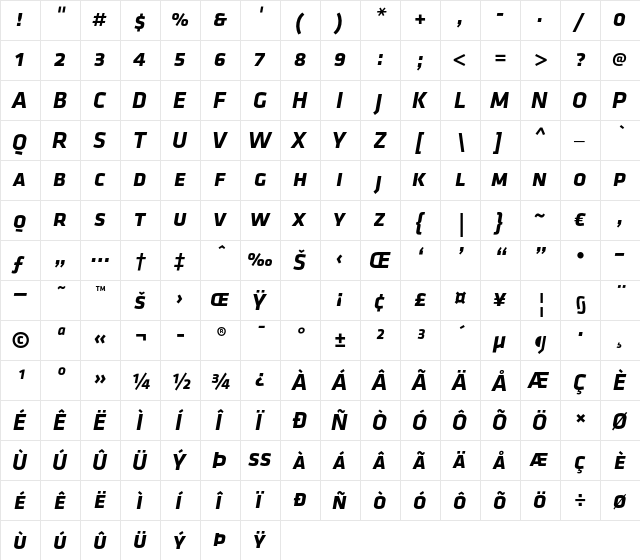
Klavika Bold Caps Regular
Design Context for Klavika Bold Caps Typeface
Klavika Bold Caps is a composed and adaptable typeface that performs quietly and consistently across a wide range of design contexts. Its bold stroke weight gives it real presence on the page.